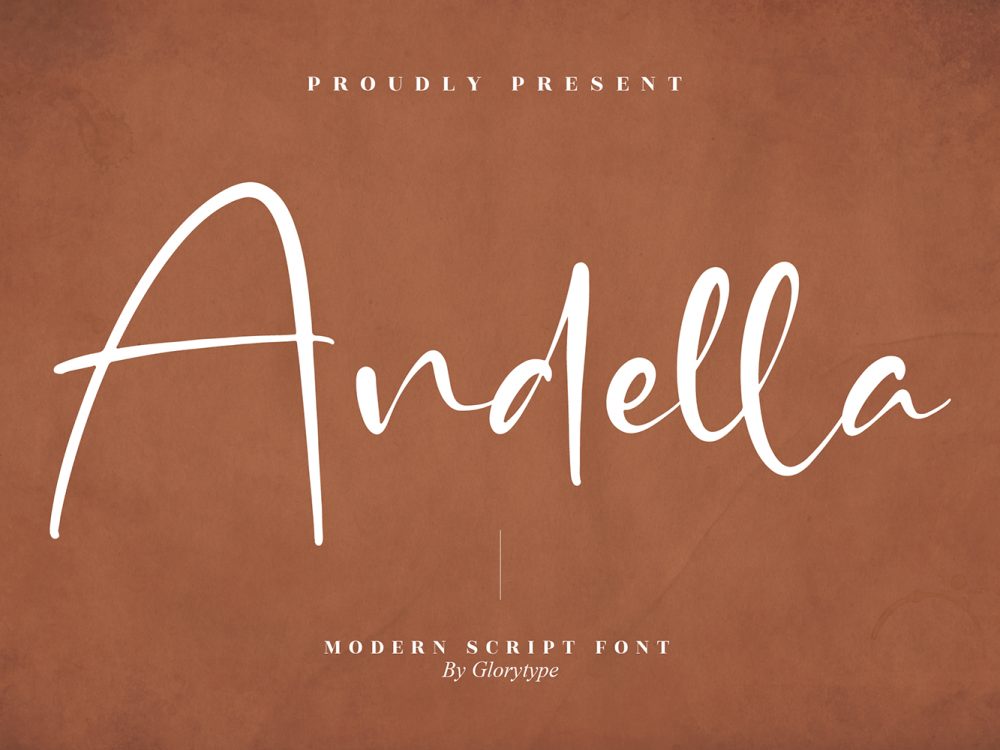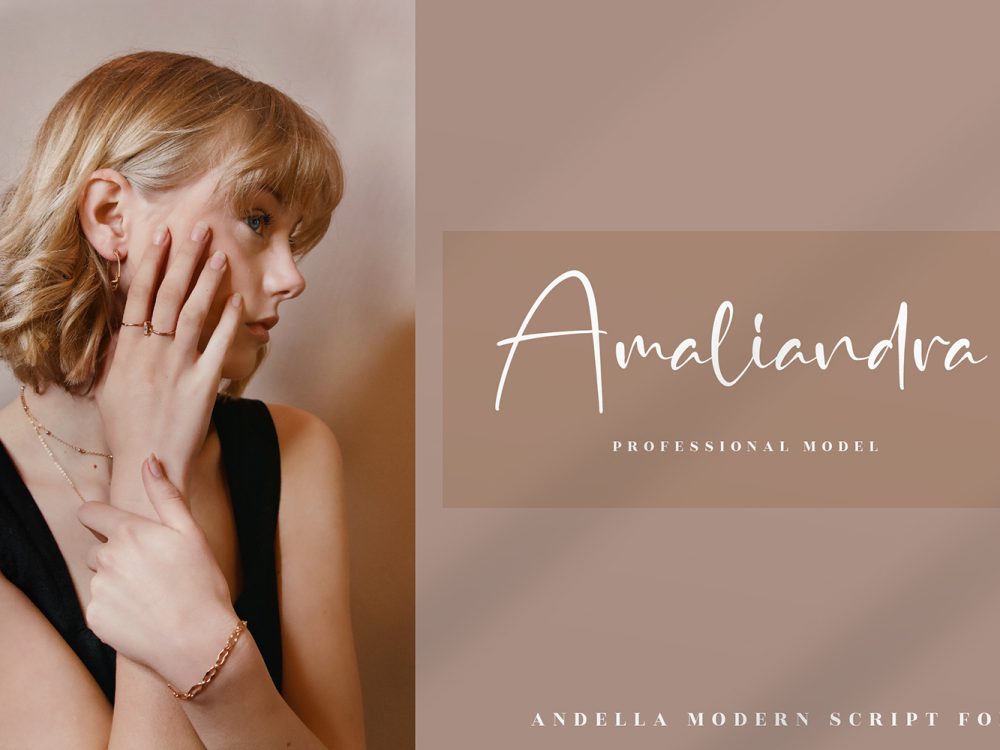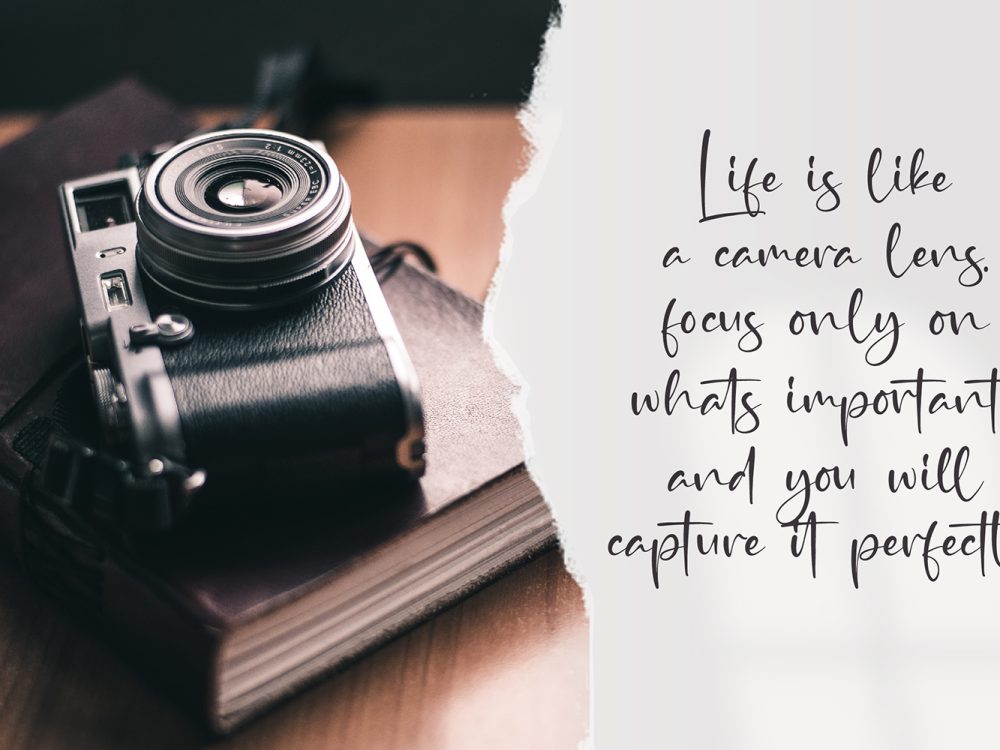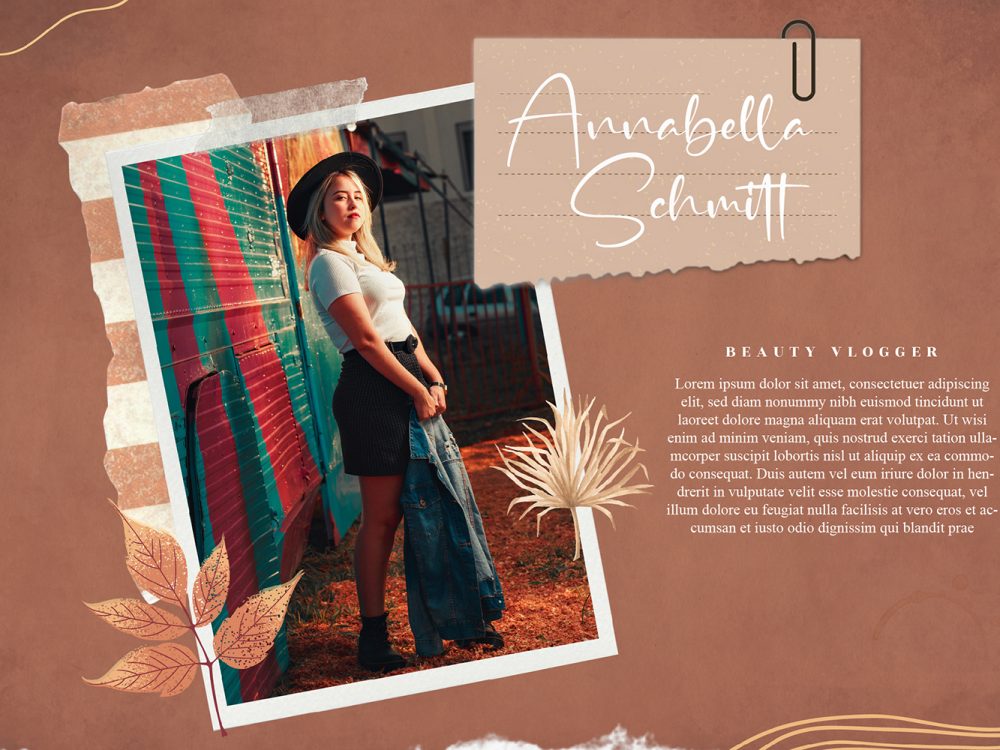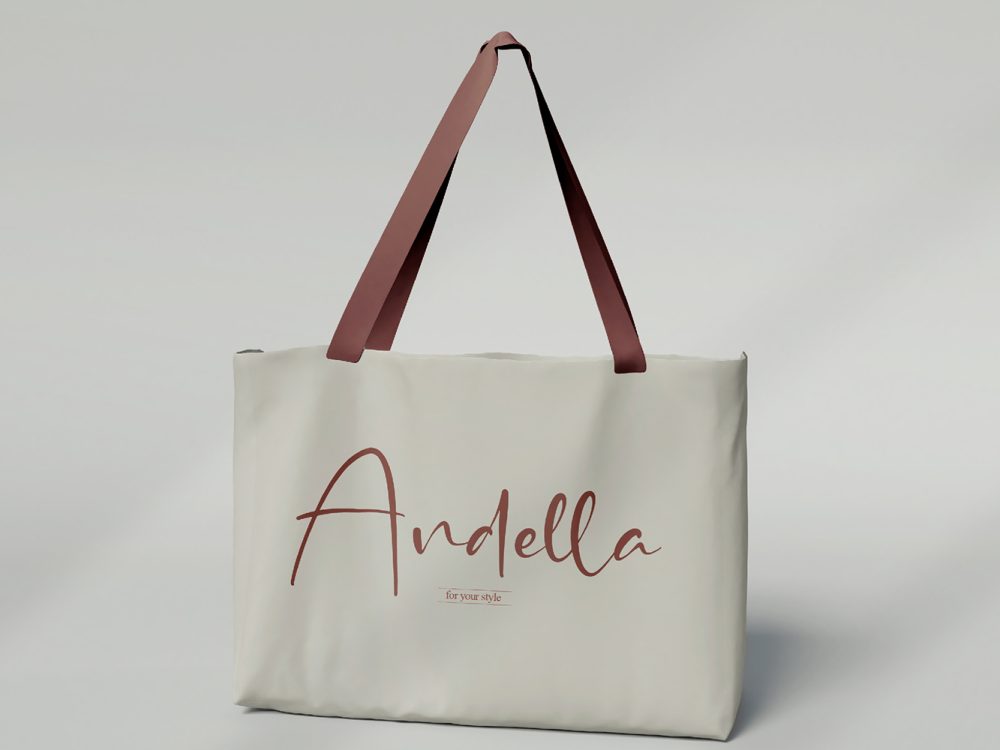
Andella Free Font
Experience the grace of Andella Free Font, a refined and flowing handwritten font radiating delicate elegance. Its harmoniously balanced and exquisite characters make it a seamless fit for a diverse range of design projects. If you like it don’t forget to check out the full version.